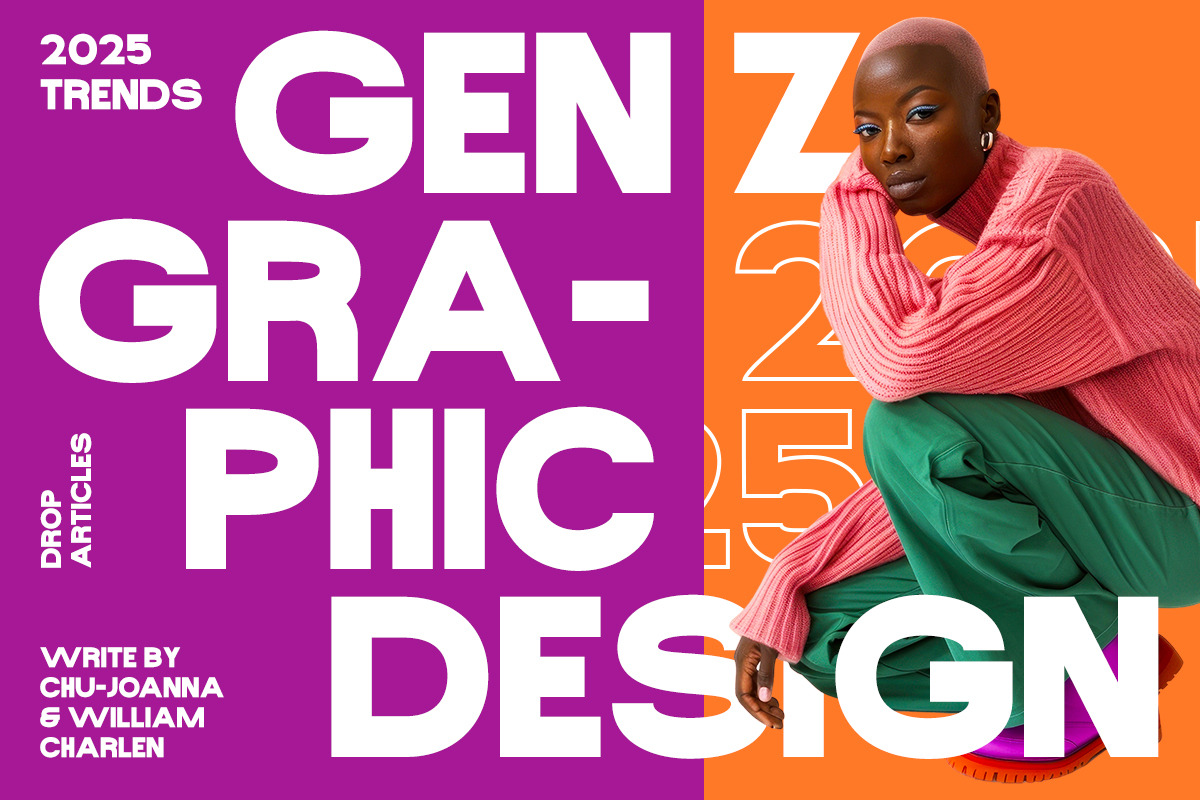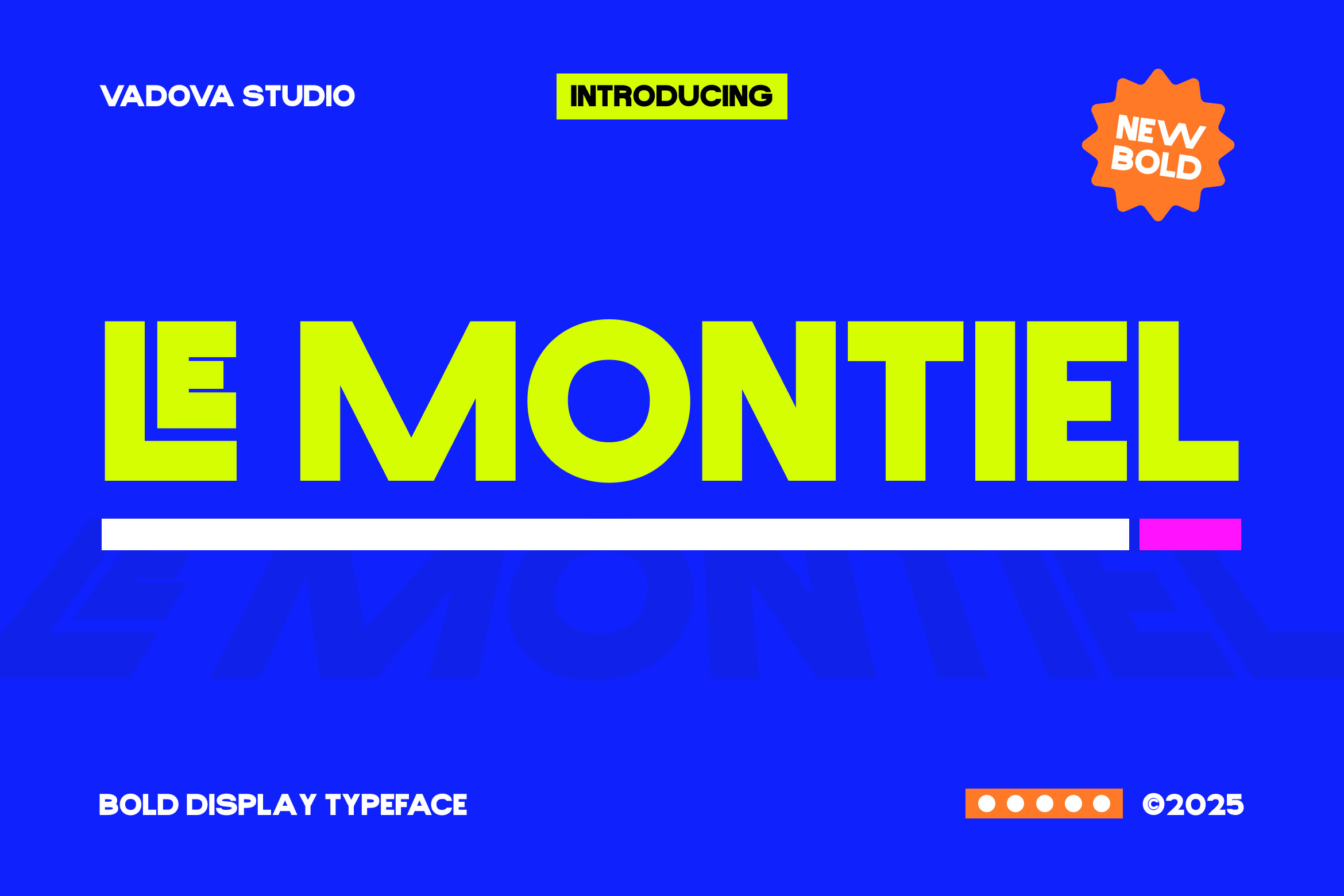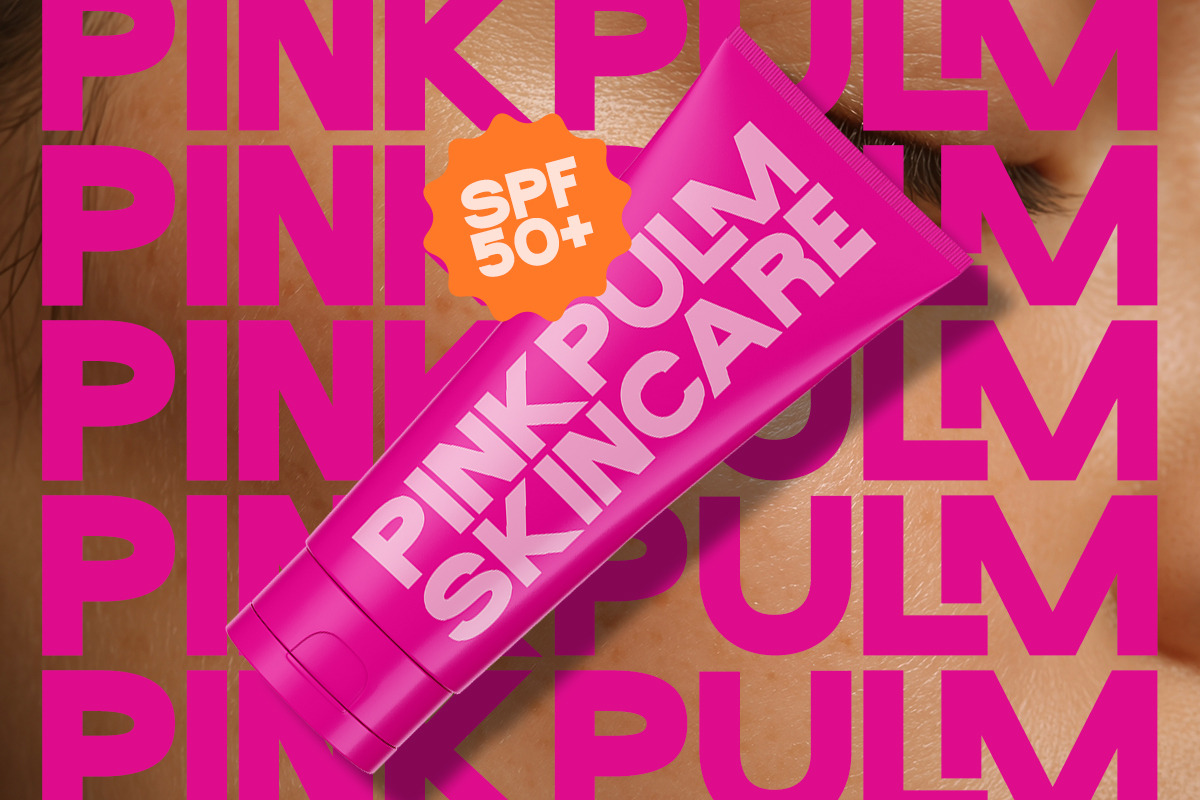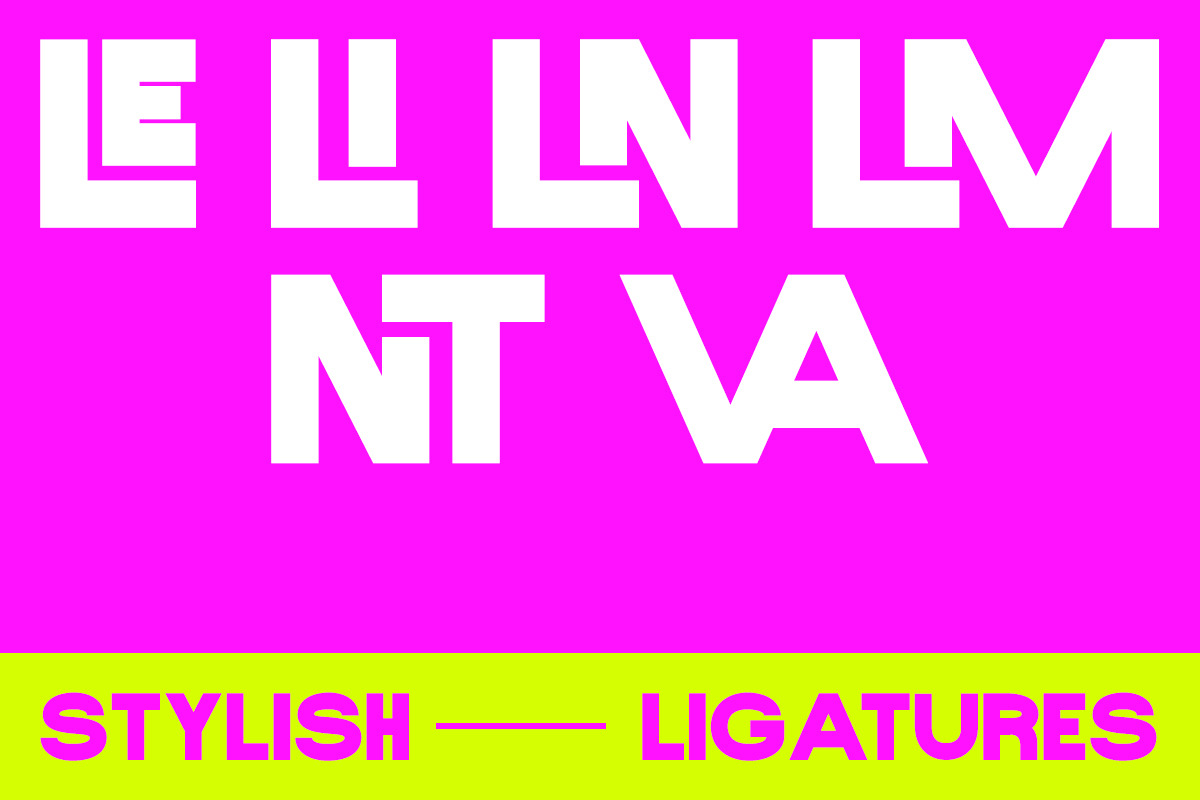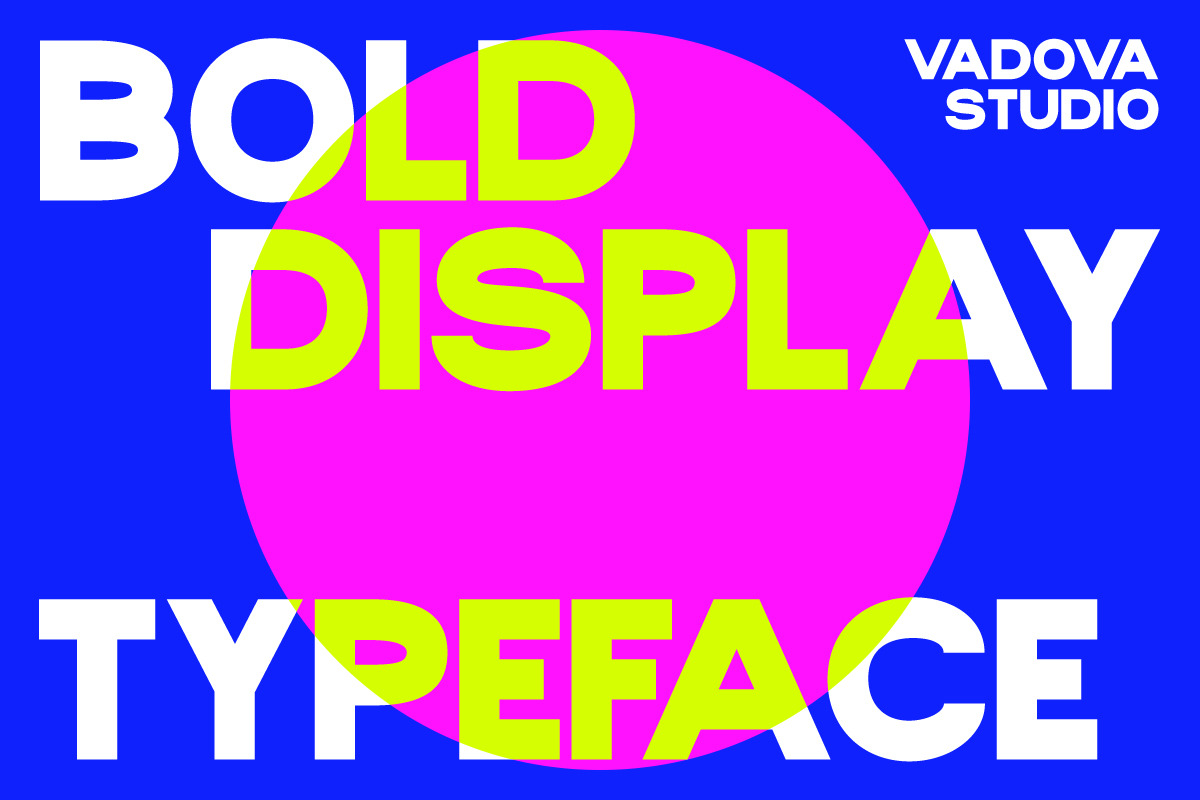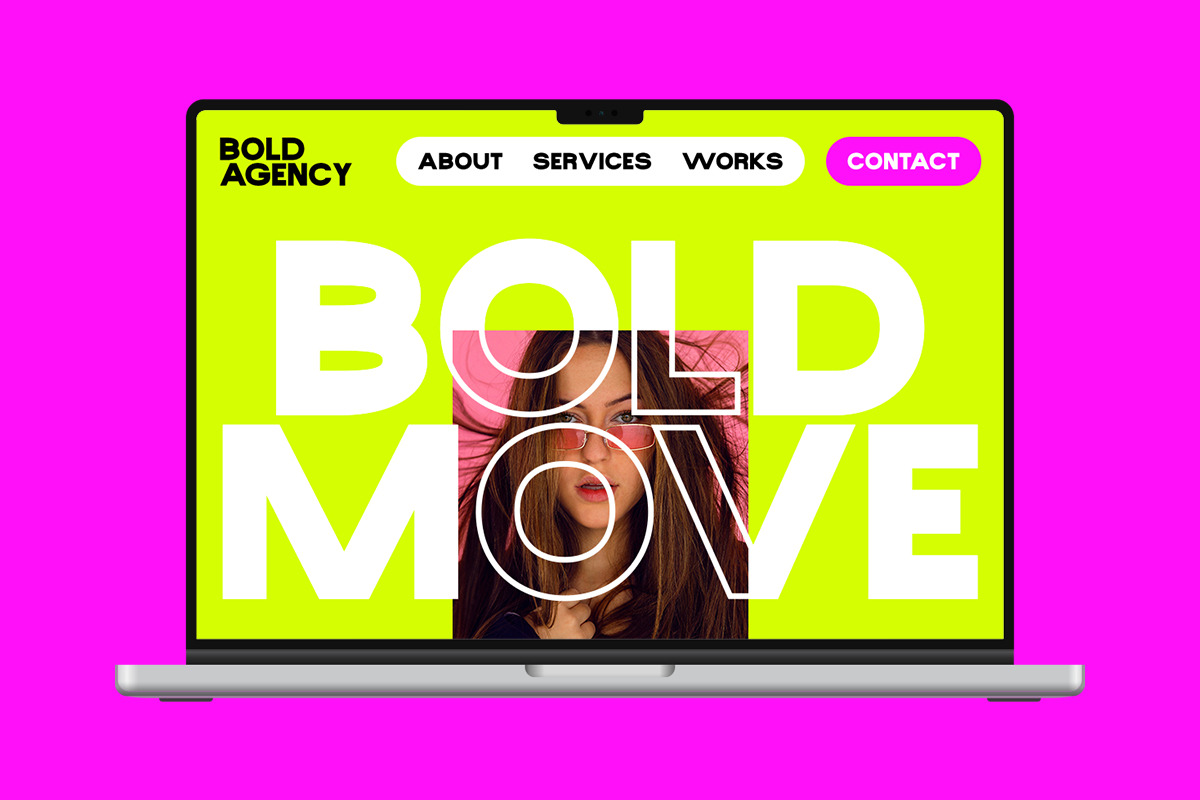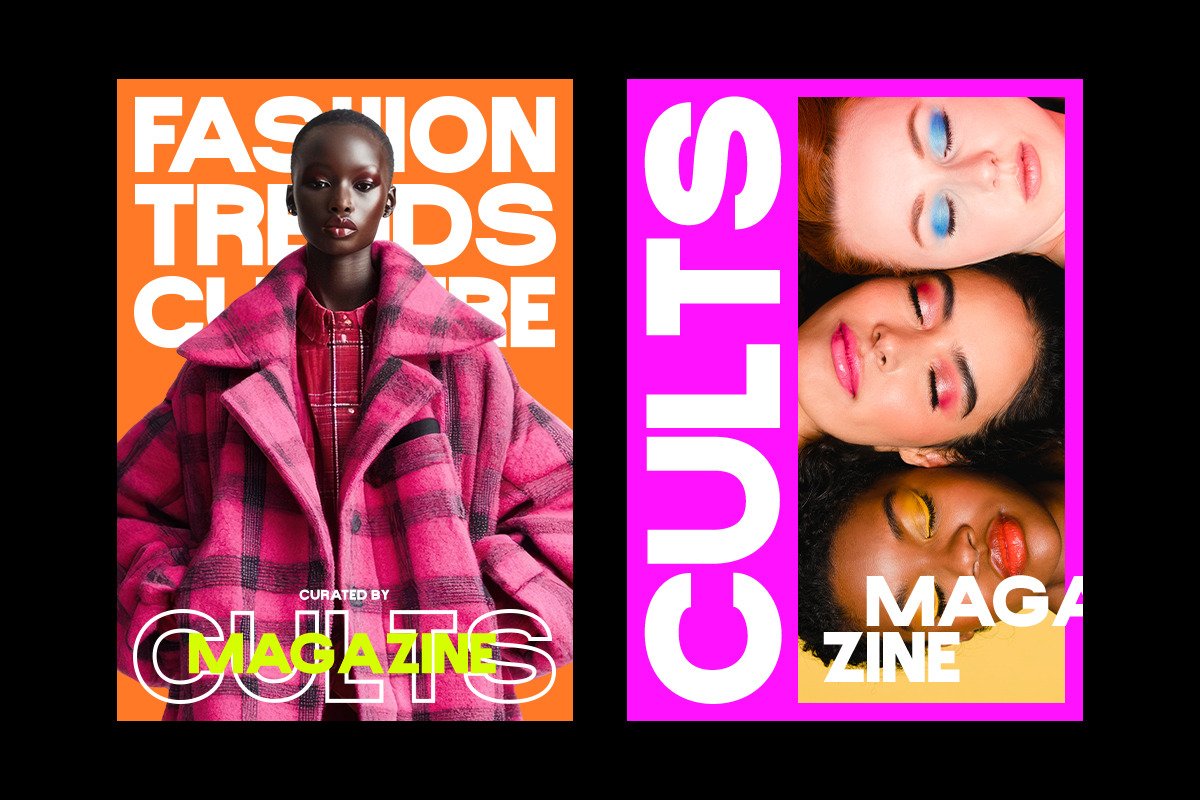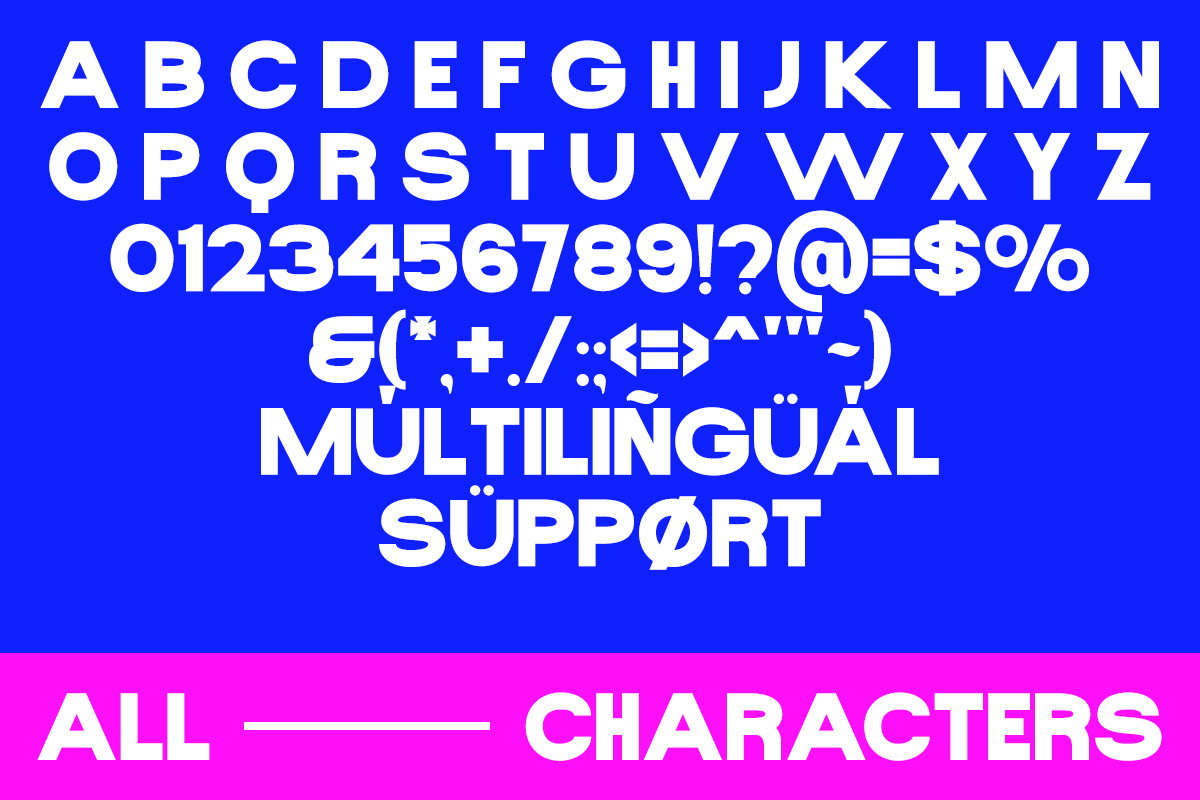
Le Montiel Bold Sans Serif Font
Le Montiel is a bold and confident display typeface that brings energy and modernism to your designs. With clean geometric lines and a vibrant personality, this typeface is designed to grab attention and make a statement in editorial layouts, branding, digital media, and creative promotions.
Crafted for high-impact use, Le Montiel features all-uppercase characters, numerical support, and a robust set of punctuation—making it perfect for headlines, posters, logos, event materials, social media graphics, and more. Its sharp angles and clear forms radiate structure and authority, while its bold styling and color-friendly spacing allow designers to create compositions that pop.
Le Montiel strikes the perfect balance between structure and creativity. Its versatility makes it ideal for fashion brands, tech events, digital ads, or any project that needs a bold and confident voice. Whether you’re designing a modern magazine spread, a product launch visual, or a stylish website header, this typeface ensures your typography stands out.
- All-uppercase bold display typeface
- Clean geometric construction for modern clarity
- Designed for attention-grabbing headlines and logos
- Crisp shapes perfect for posters, campaigns, and product branding
- Easy pairing with minimalist or contemporary visuals
- Multilingual support for global use
- Versatile for both digital and print applications
- High legibility even at large scales
- Excellent for modern branding and creative direction
Relevance and Use Cases is for fashion branding, magazine design, packaging, portfolio, lifestyle blog, minimalist logo, UI/UX design, social media post, business card, web banner.
Capture attention instantly with the vibrant, bold energy of Le Montiel.